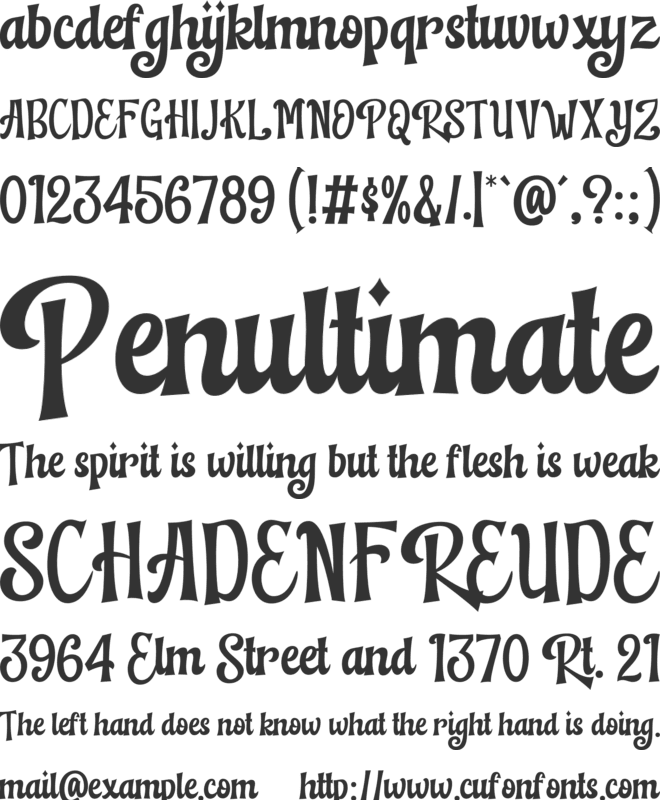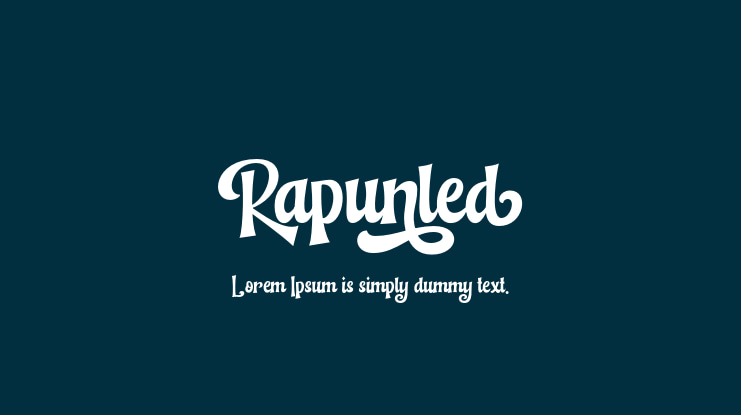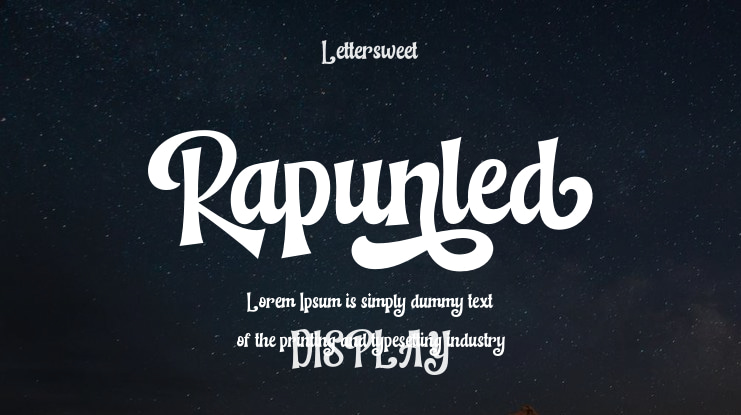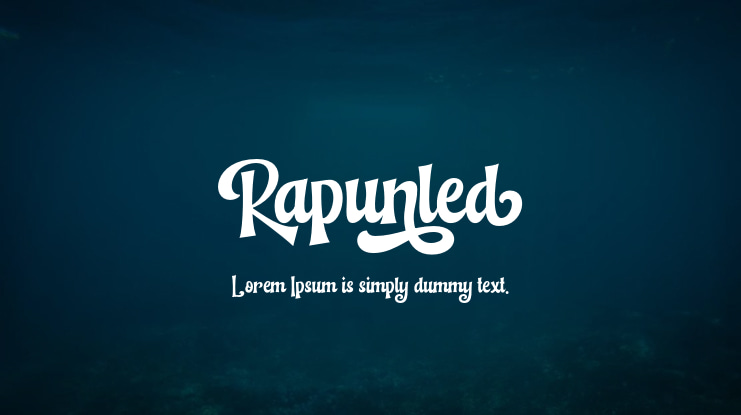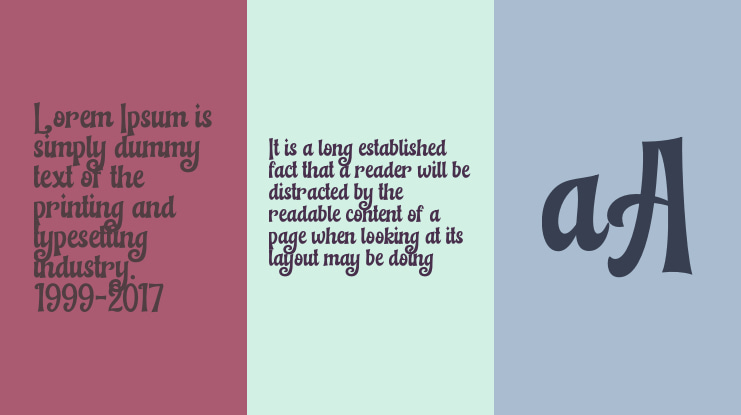
Rapunled Font
Rapunled is a script font inspired by the Princess Rapunzel movies. The Rapunled font has many alternative fonts. So the design can be more attractive.
This font is PUA encoded which means you can access all of the glyphs and swashes with ease!